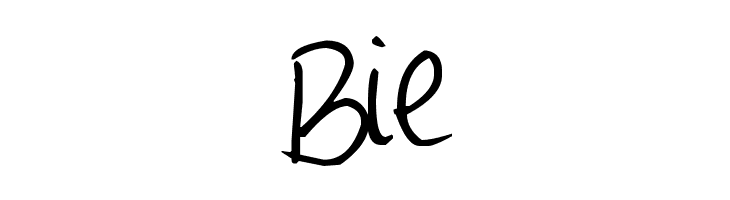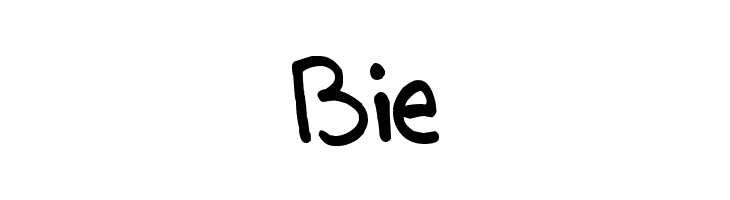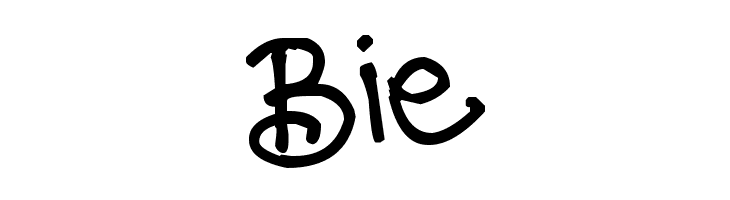
A sophisticated font with a blend of classic and modern elements, featuring elegant curves and playful details.
A playful, handwritten font with a casual and friendly vibe.
A playful, casual handwritten font with a lively and dynamic appearance.
A playful, casual handwritten font with uneven strokes and a friendly vibe.
A playful, handwritten font with irregular strokes and a casual vibe.
A casual, handwritten script font with a playful and elegant touch.
A bold, playful handwritten font with a casual and dynamic style.
A playful, handwritten font with a whimsical and casual style.
A playful, handwritten font with a casual and informal style.